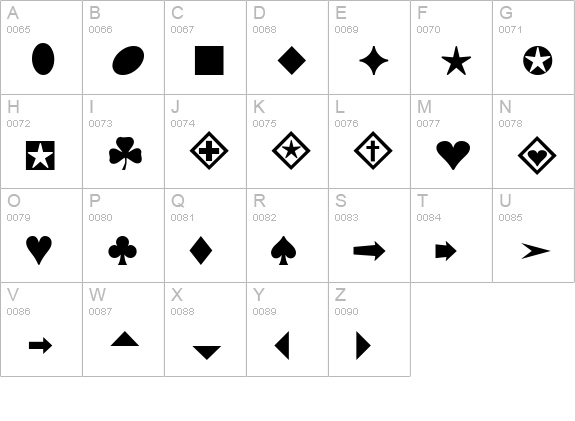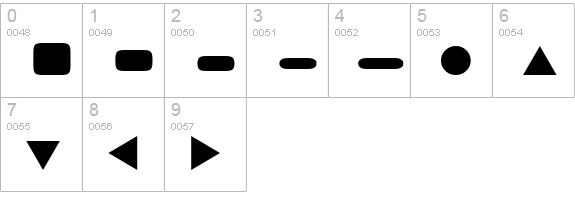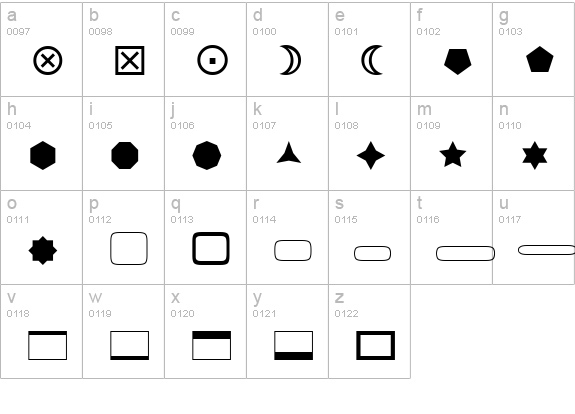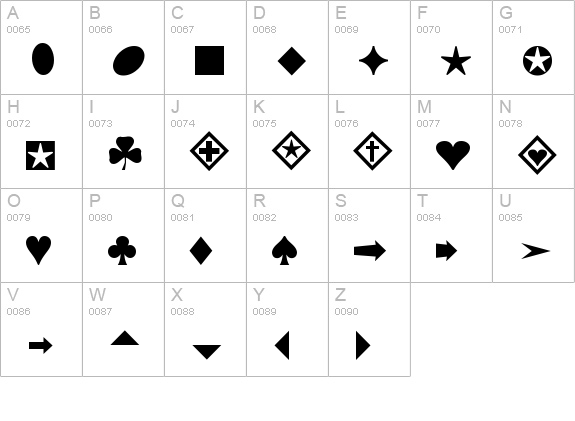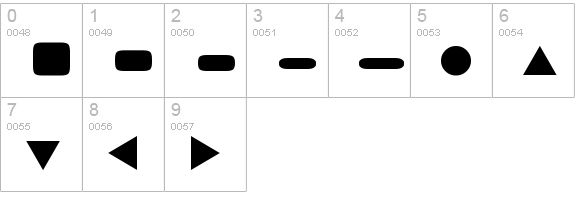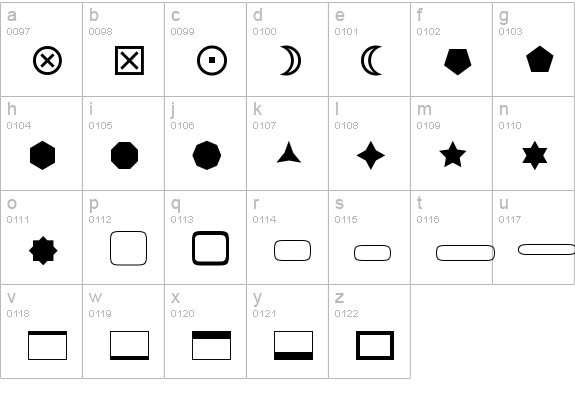
F&T_BasicShapes1 Font Details
F&T_BasicShapes1 font is a versatile and eye-catching typeface that is perfect for adding a touch of uniqueness and creativity to any design project. With its clean lines and bold geometric shapes, this font is sure to make a statement. This font features a wide range of basic shapes, including circles, squares, triangles, and more. Each character is carefully crafted to maintain a harmonious balance between simplicity and visual impact. One of the best things about F&T_BasicShapes1 font is that it is free to download. That's right, you can easily access this font without any cost. It is available for download at FontsMarket.com, a trusted source for high-quality fonts. Whether you're designing a logo, creating a poster, or working on a website, F&T_BasicShapes1 font is sure to add a modern and stylish touch to your project. Its versatility allows it to be used in various contexts, from minimalist designs to more complex compositions. With its clean and crisp appearance, F&T_BasicShapes1 font is highly legible even at smaller sizes, making it suitable for both print and digital applications. Its bold and distinct shapes will surely capture the attention of your audience and leave a lasting impression. So why wait? Enhance your designs with F&T_BasicShapes1 font today. Download it for free at FontsMarket.com and unlock a world of possibilities for your creative endeavors.